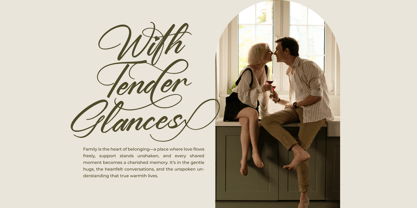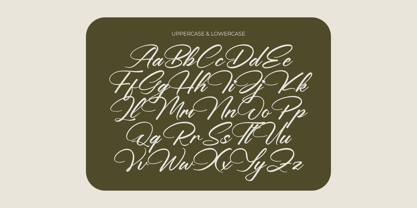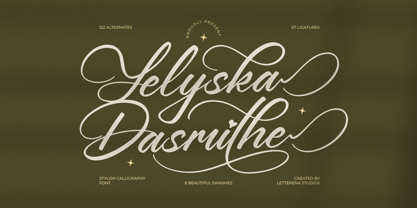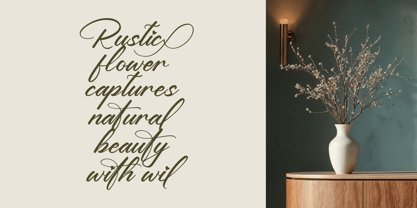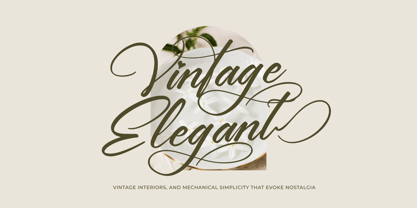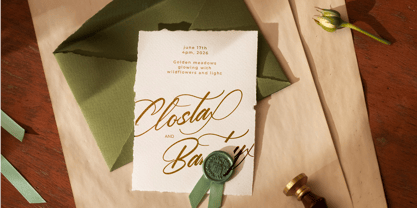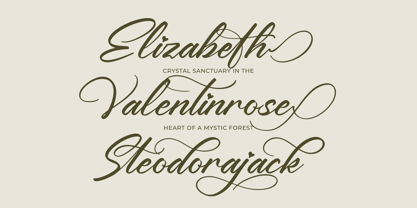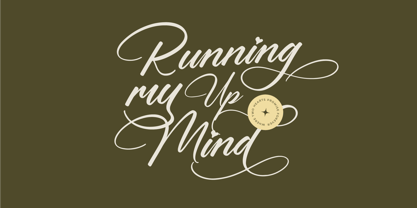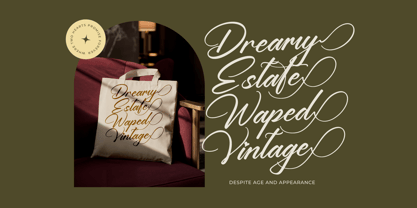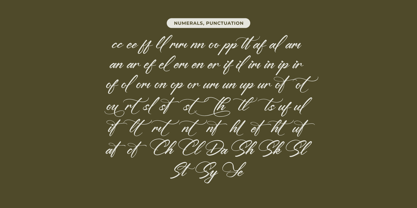
Yeliska Dasmithe
The Yeliska Dasmithe Font Family was designed by Heru Utama Putra and published by Letterena Studios. Yeliska Dasmithe contains 2 styles and family package options.
Yeliska Dasmithe – Stylish Calligraphy Font , from Letterena, is a Luxury Script font, suitable for any projects such as: logos, branding projects, homeware designs, product packaging, mugs, quotes, posters, shopping bags, t-shirts, book covers, name card, invitation cards, greeting cards, label, photography, watermark, special events, and all your other luxury and beautiful projects that need a Luxury Script taste.